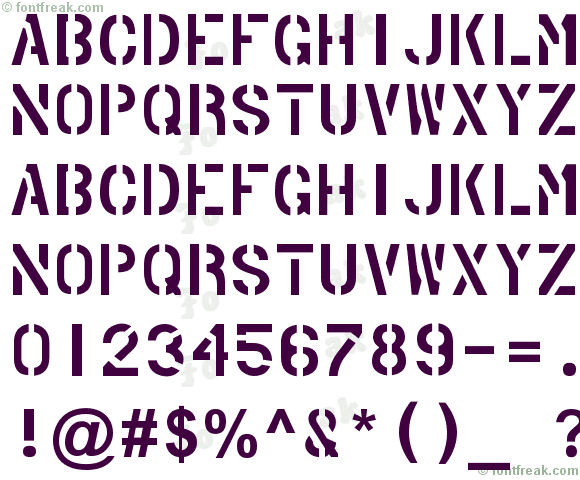
PHANTOM STENCIL
Phantom Stencil, designed by Mark A. Klein, is a striking display font that belongs to the stencil category. This font features bold, geometric letterforms that create a strong visual impact, making it ideal for various creative projects. The unique character of Phantom Stencil lies in its balanced stroke weight and minimal contrast, which gives it a modern, industrial feel. The open spaces created by the cut-outs in the letters add an element of intrigue, allowing for effective readability while maintaining a playful aesthetic.
This font is particularly well-suited for a range of applications. Graphic designers might find it perfect for bold movie posters, where the font can capture attention and convey a sense of excitement. Small business owners could utilize Phantom Stencil in their branding, especially for signage or packaging that seeks to project a contemporary vibe. Content creators looking to add flair to their blog headers or social media graphics will appreciate its eye-catching style. Additionally, the font can serve well in urban-themed wedding invitations, providing a unique touch that reflects a modern sensibility.
Targeting graphic designers, small business owners, and content creators, Phantom Stencil offers a versatile solution for those seeking to elevate their visual communications. Its freeware license makes it accessible for anyone looking to incorporate a distinctive font into their projects without incurring costs.
What truly sets the Phantom Stencil font apart is its combination of modern design and practical usability. The bold, clean lines, paired with the playful stencil elements, make it a memorable choice for any creative endeavor. Whether you’re working on a professional project or a personal design, the Phantom Stencil font free download opens up a world of possibilities for innovative typography.